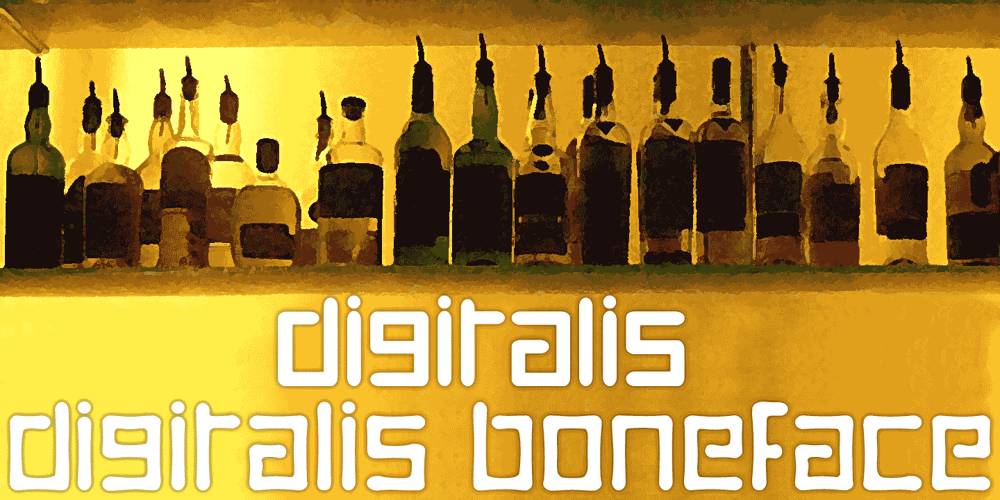
Digitalis Font Family was designed by Keith Bates and published by K-Type. Digitalis contains 1 styles and family package options. Simple, bold, designer face with identical upper and lower cases, supplied with an organic boneface version.